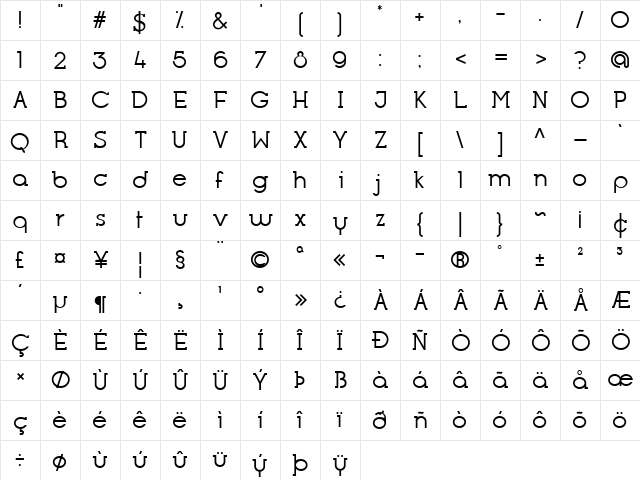
Opificio Serif Regular
Design Context for Opificio Serif Typeface
Opificio Serif carries the refined structure of traditional serif typography, with bracketed terminals and considered proportions that communicate credibility and craft.
Pro Tip: Set Opificio Serif with slightly loose tracking in headlines to let each letterform's detail read clearly at display sizes.